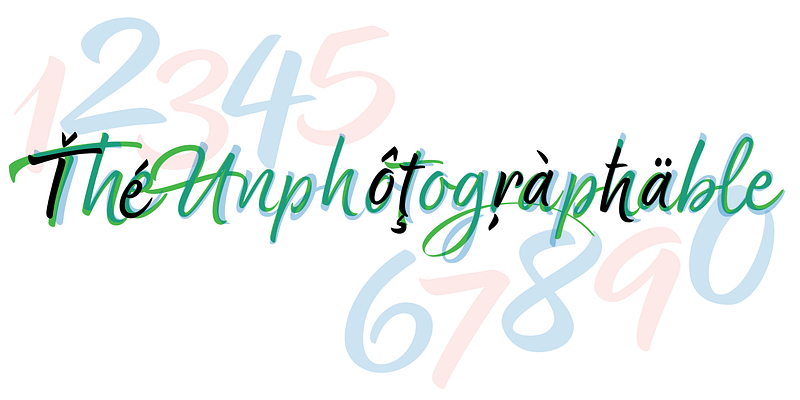
Good Karma Smooth Font Free Download
Good Karma Smooth Font Free Download is a friendly and smooth script typeface with a relaxed, elegant flow. Designed with natural curves and a clean, polished style, this font is perfect for creating designs that feel personal and inviting, such as wedding invitations, branding, greeting cards, and social media graphics.
Its smooth letterforms make it ideal for both large headings and small text, ensuring readability without compromising on style. Good Karma Smooth integrates seamlessly with design software like Adobe Illustrator, Photoshop, Canva, and Figma, offering flexibility for both digital and print projects.